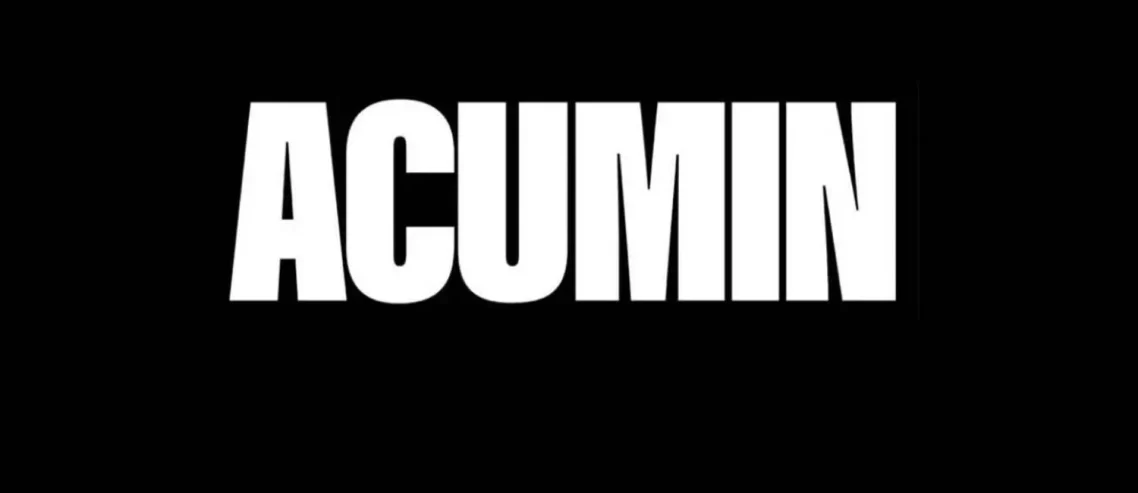
Acumin Pro Font Free Download
Acumin Pro Font is a sleek and modern typeface designed by Robert Slimbach. He is the talented designer behind this font. Acumin Pro is in the category of sans-serif fonts. This means it has clean lines without the small decorative strokes at the end of letters. Robert Slimbach wanted to create a font that looks …